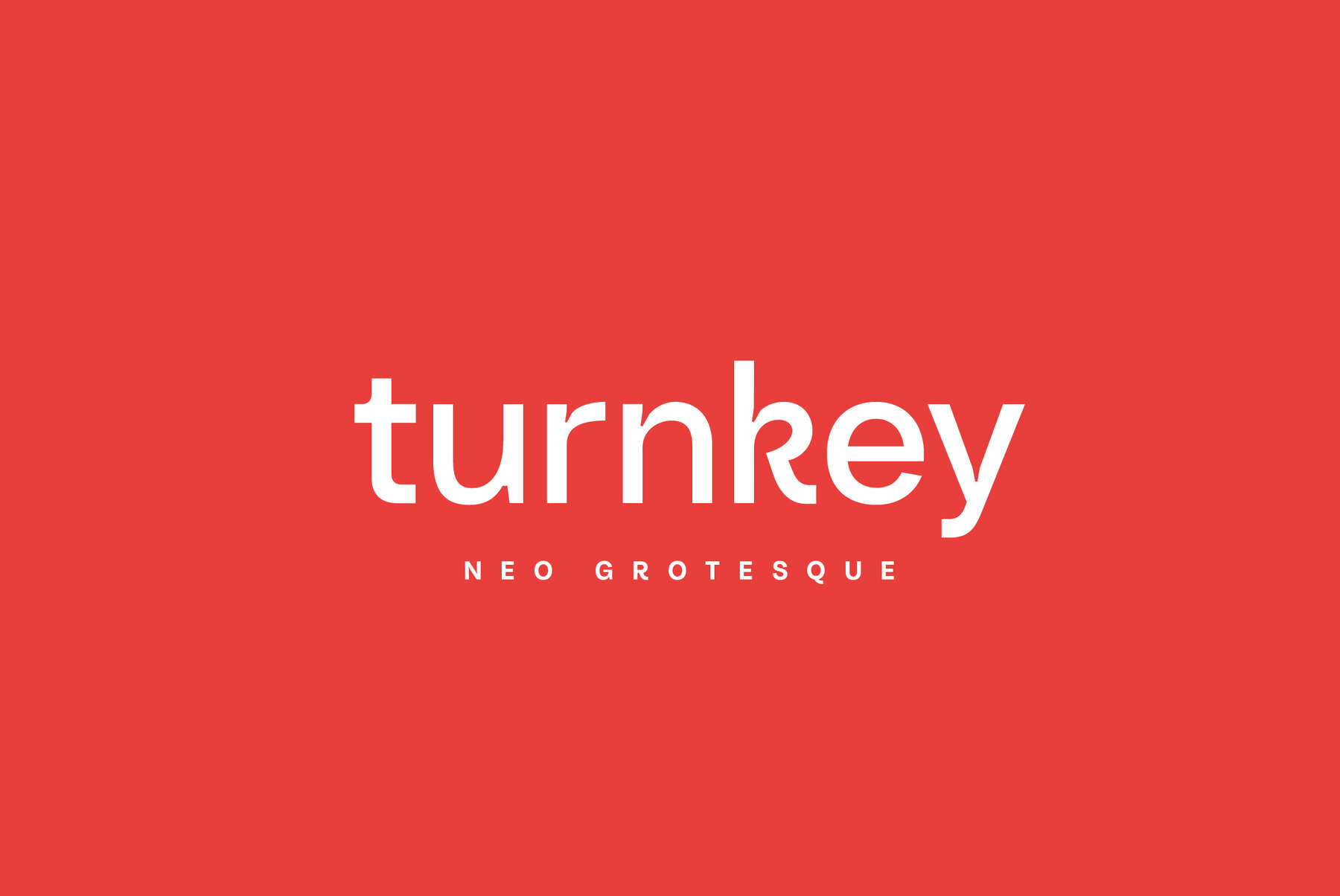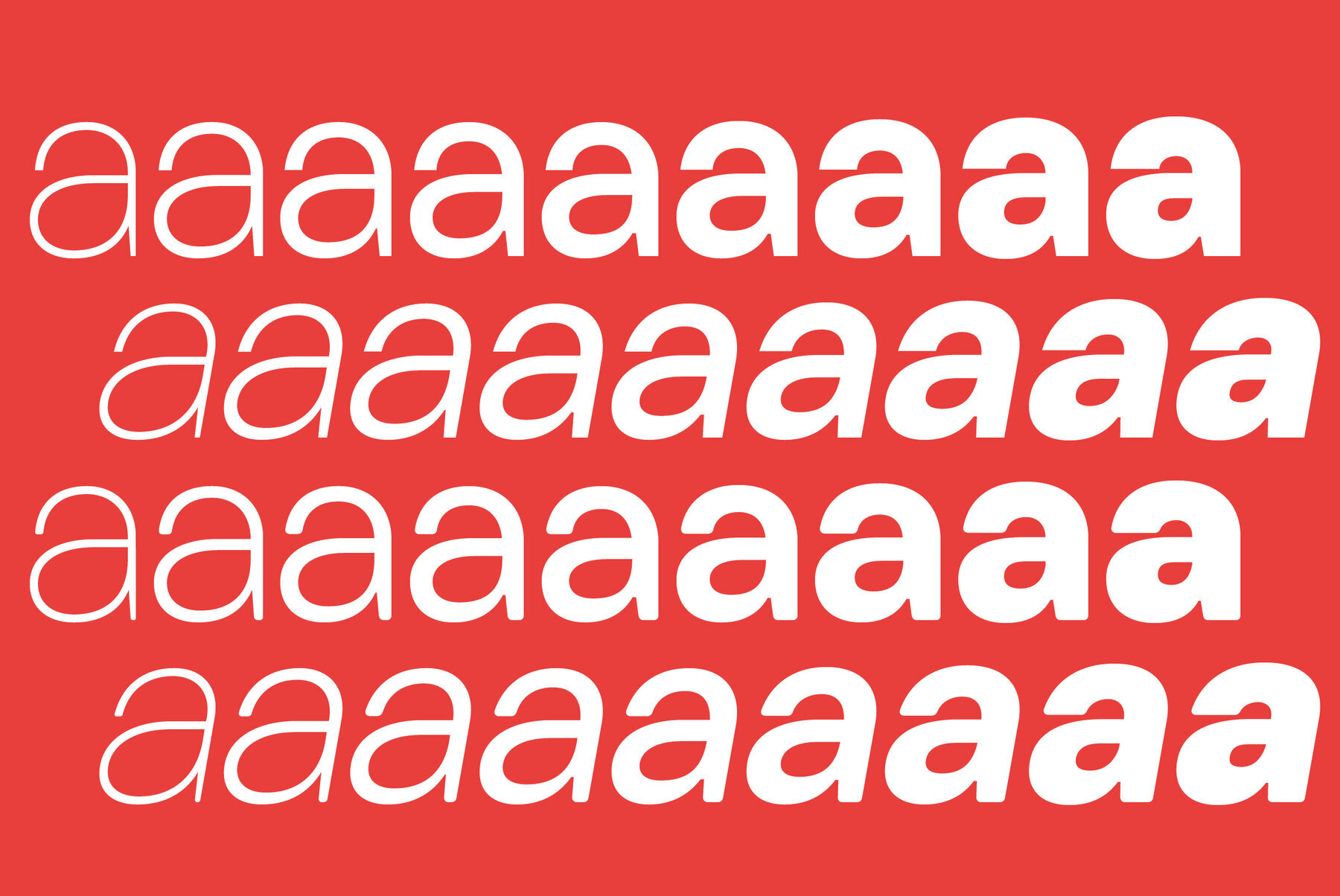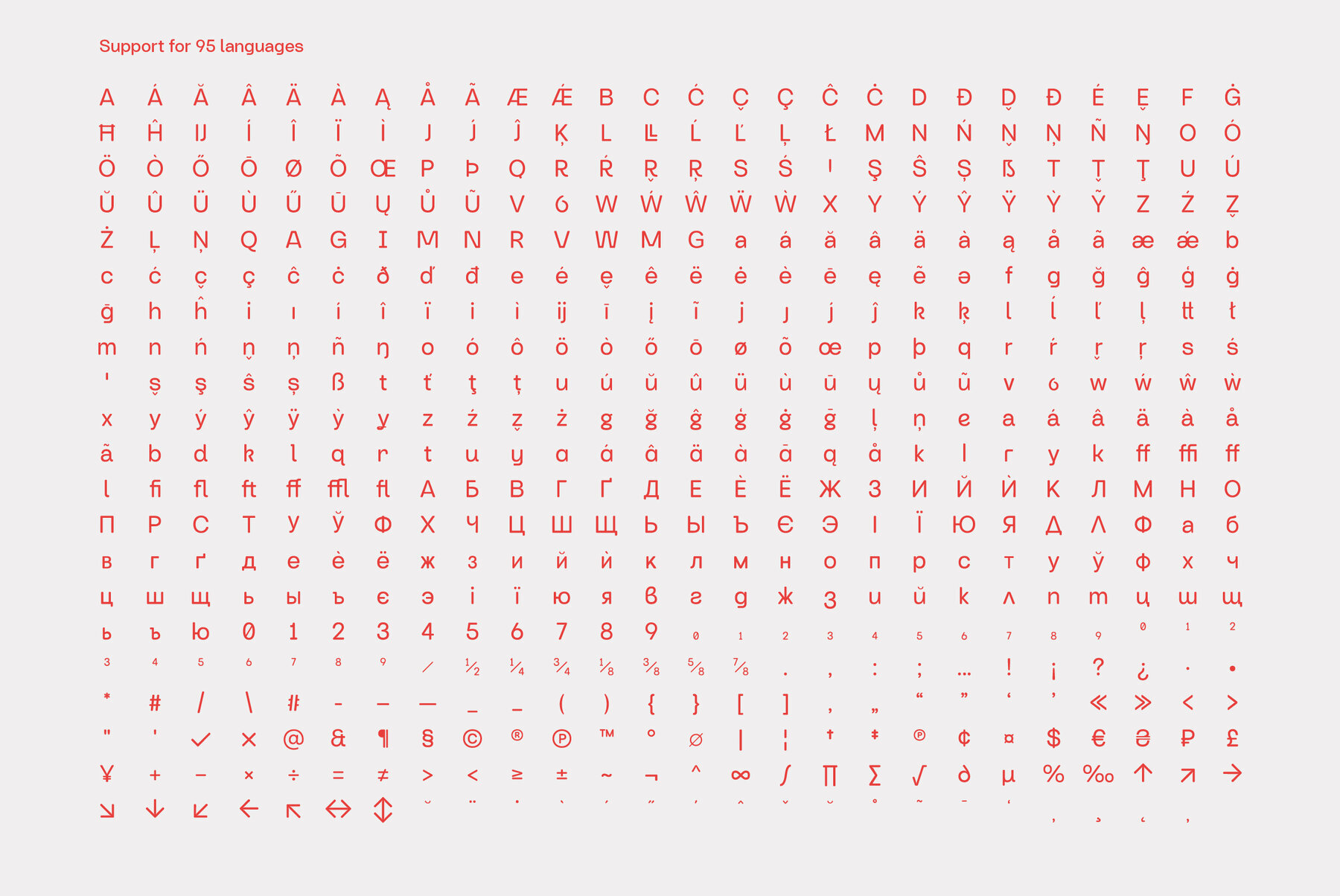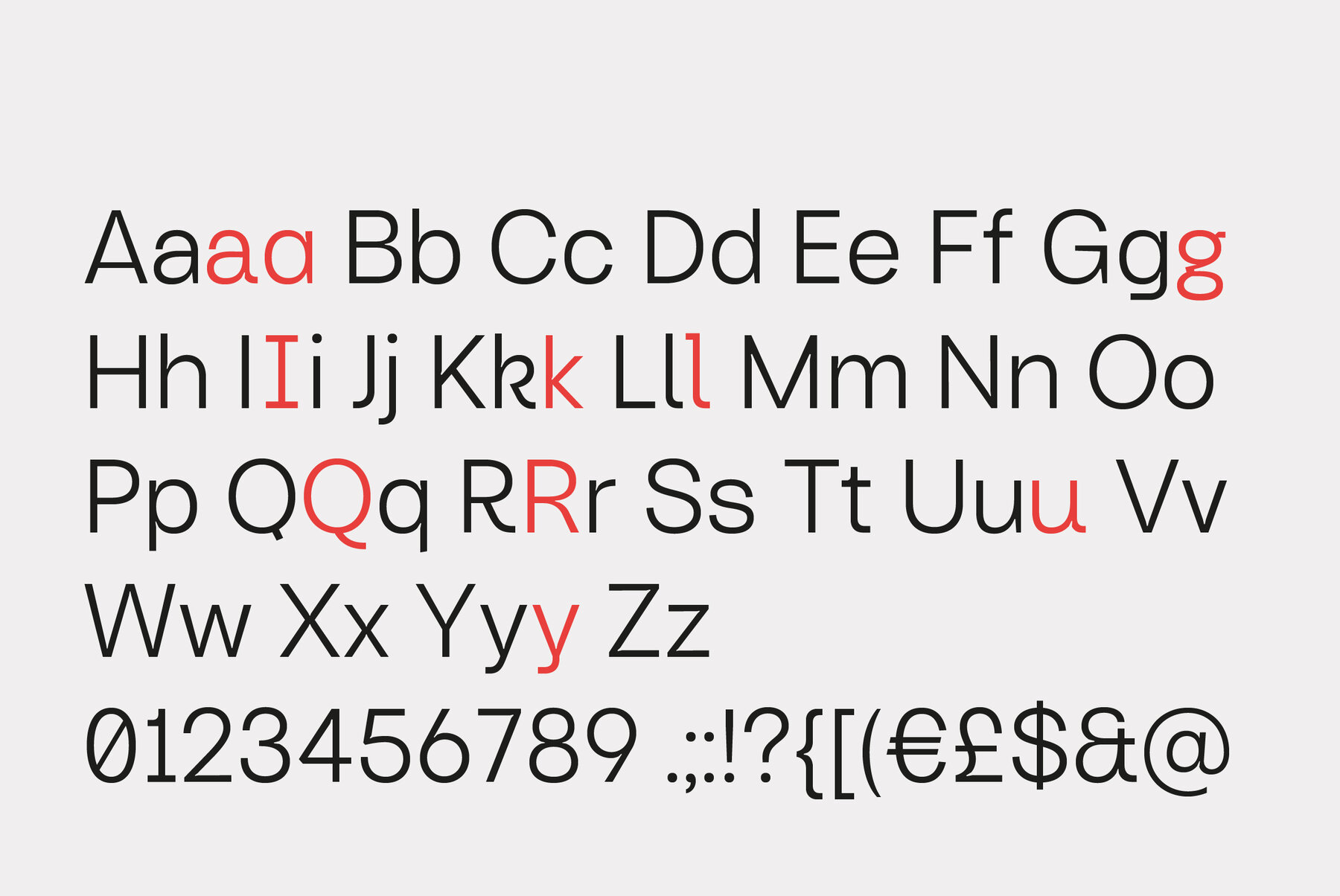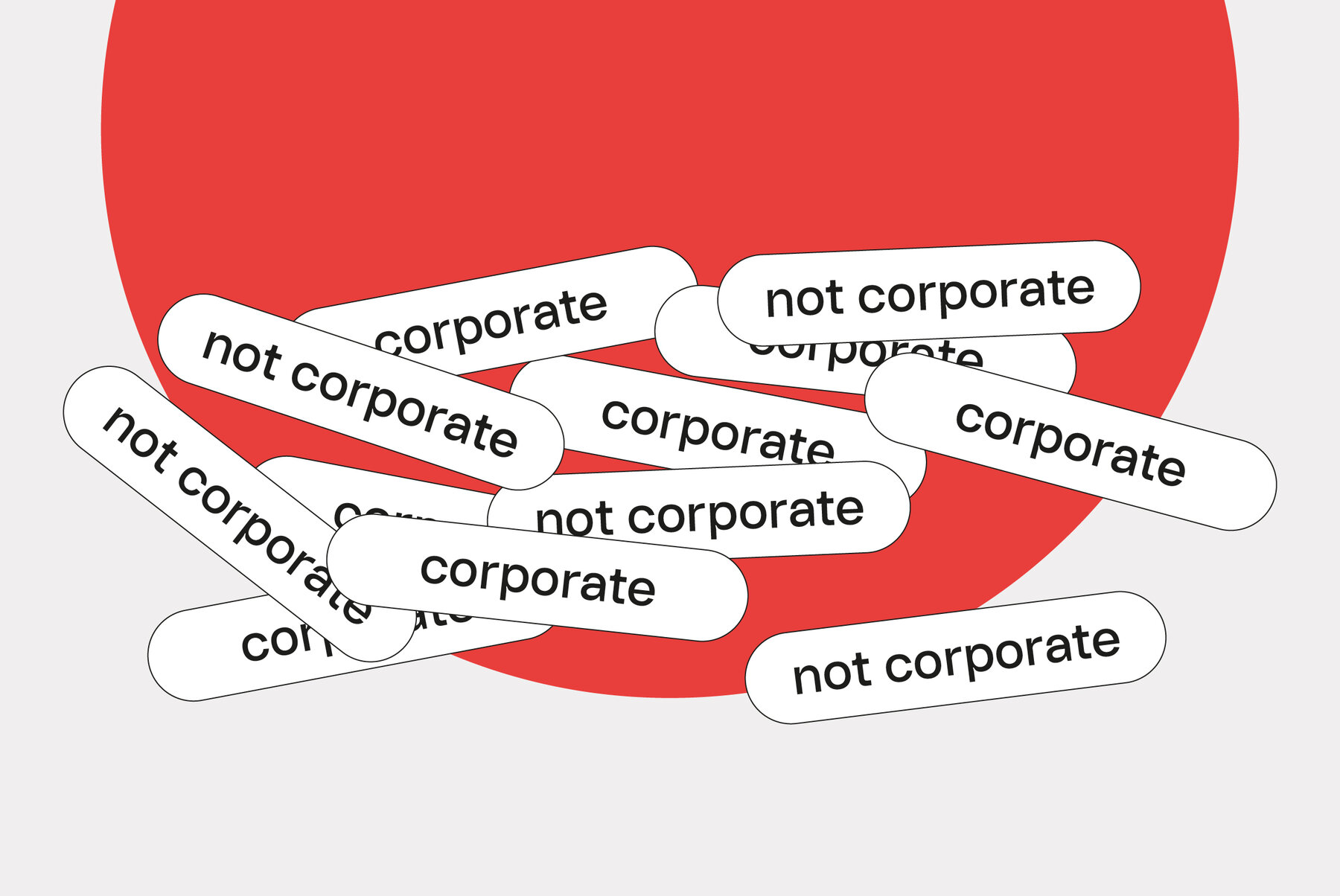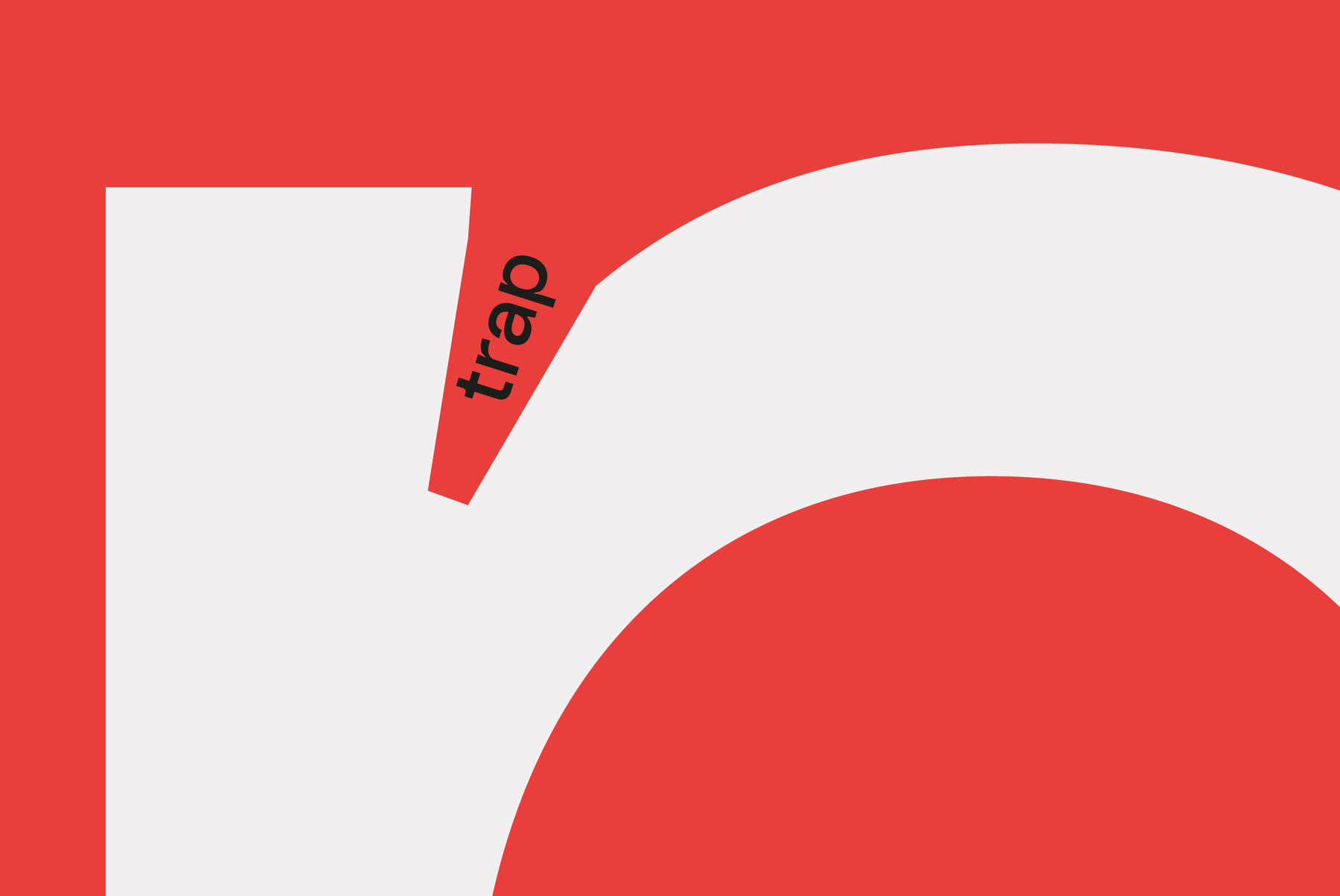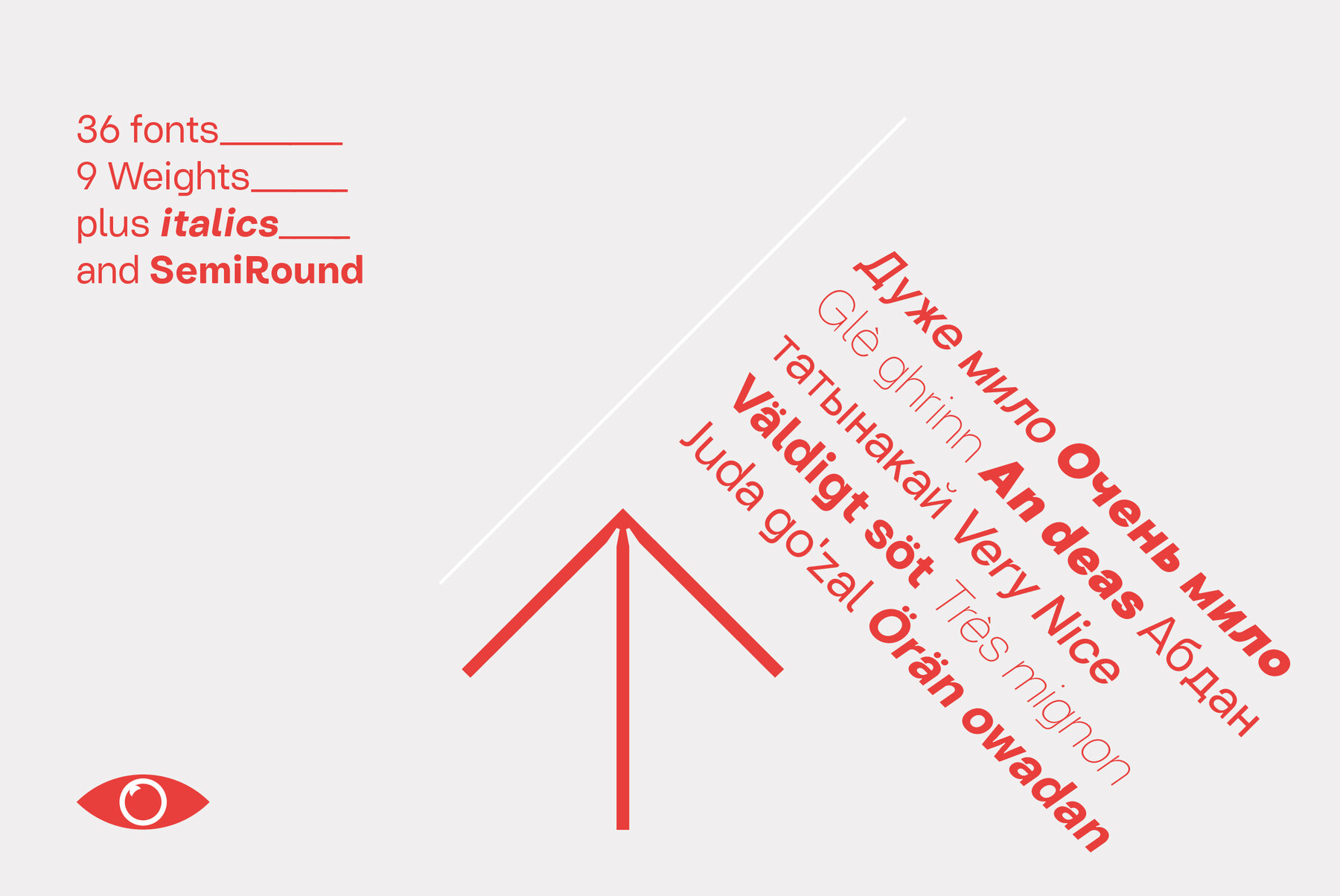
Turnkey Font
The turnkey font is a modern grotesque typeface, it could be described as a neo-grotesque with hints of geometric shapes. Designed to be a versatile typeface for both small and large sizes, ink traps have been used as a design feature above 26pt and a technical feature when printing small body text.
The combination of 36 weights and styles allows you the freedom to create. Each weight includes extended support for over 90 languages (Including Cyrillic), fractions, tabular figures, arrows, ligatures, alternate glyphs and more.